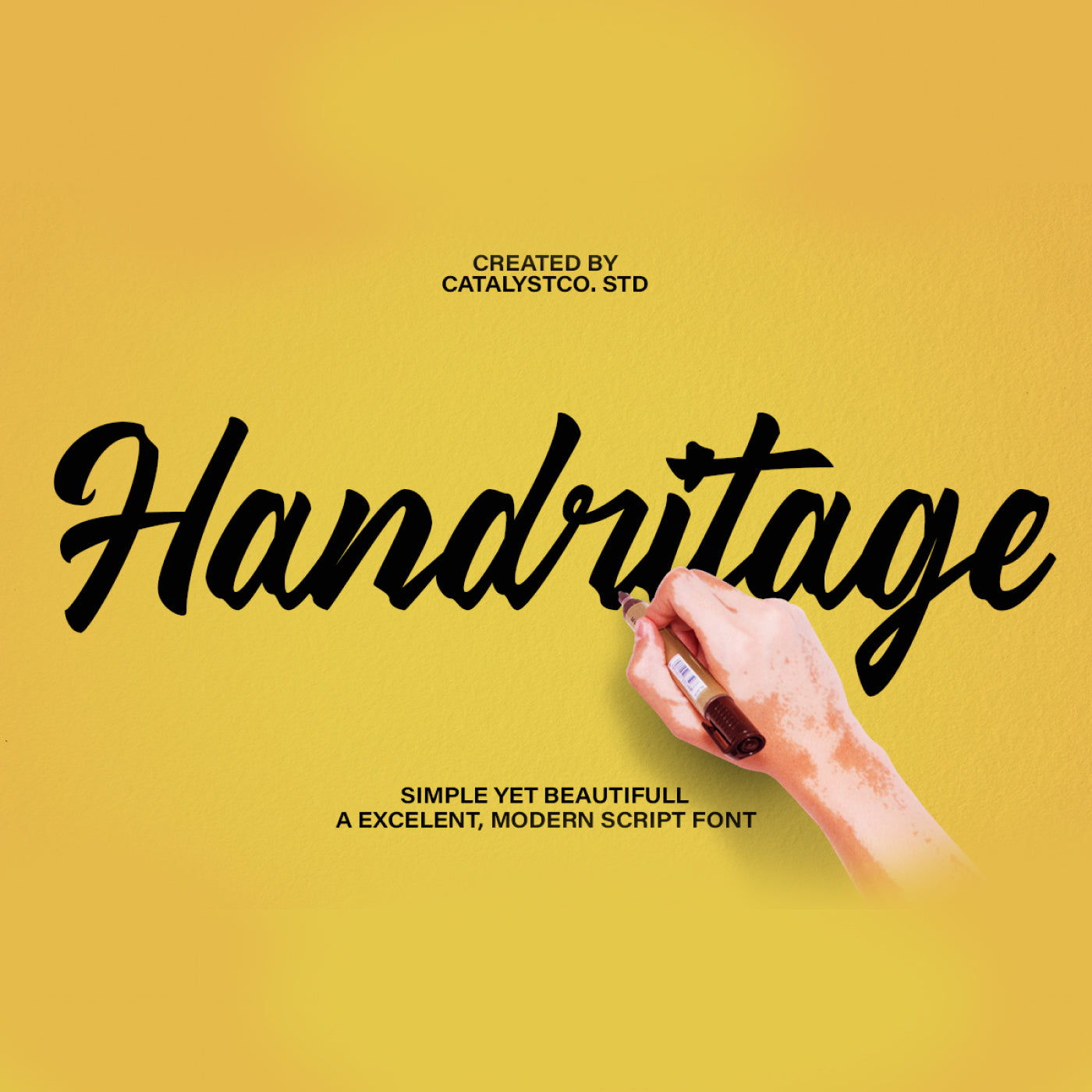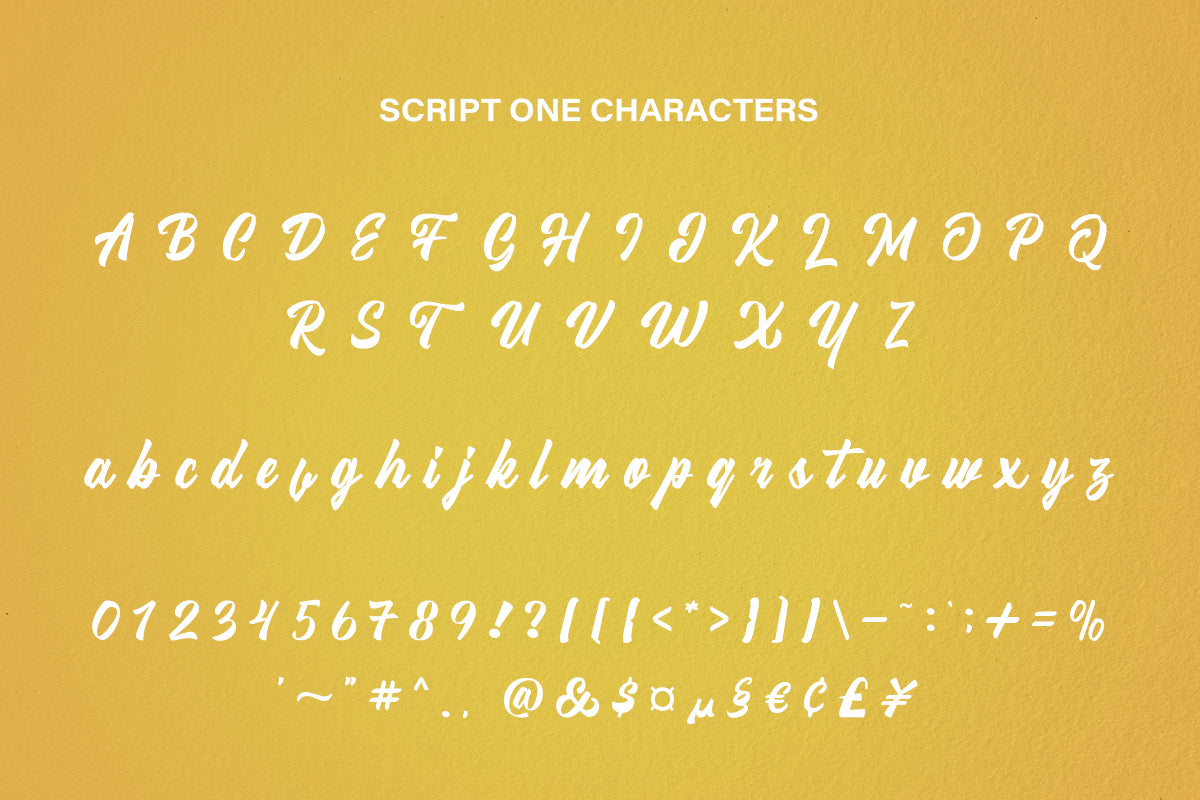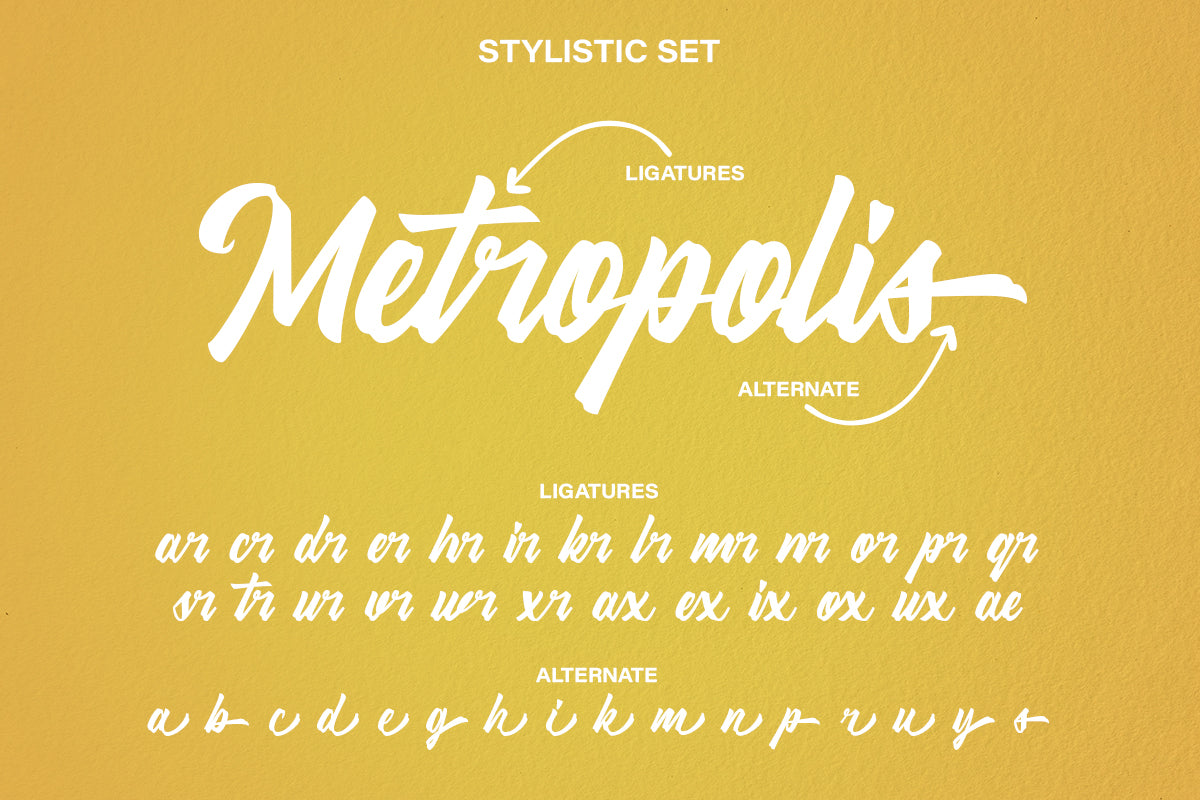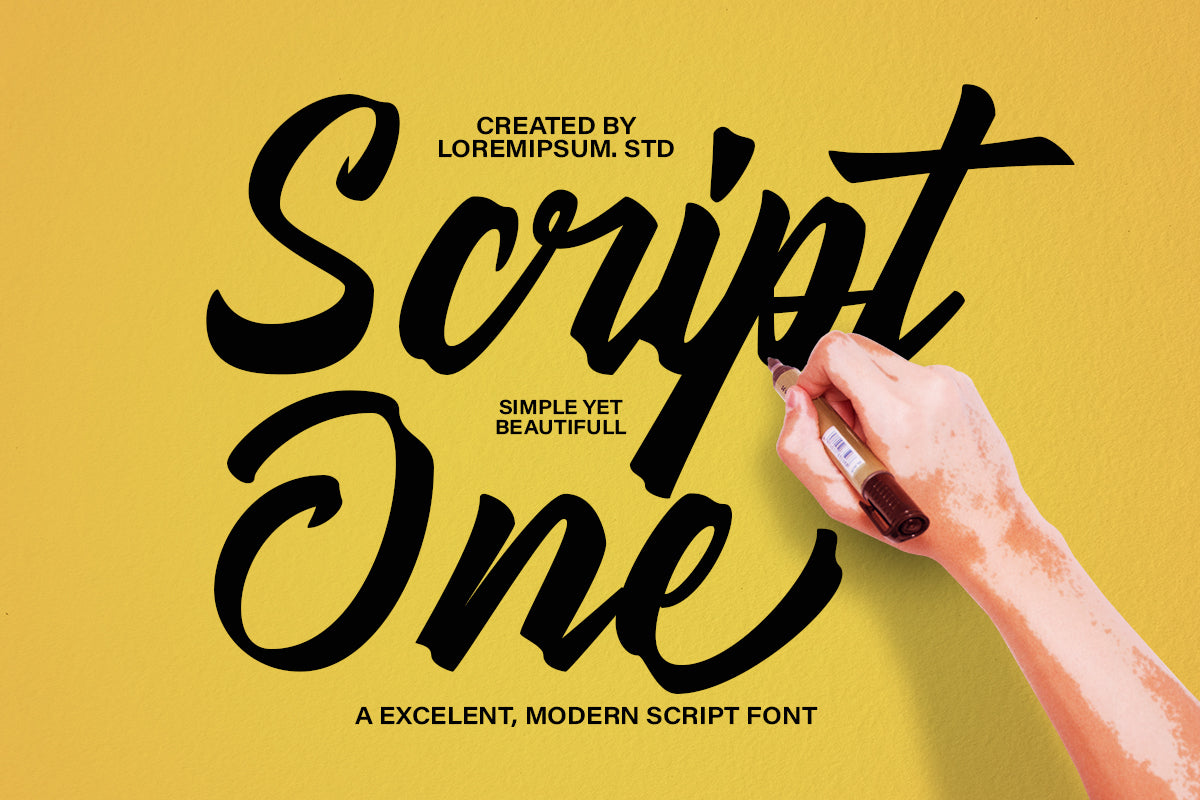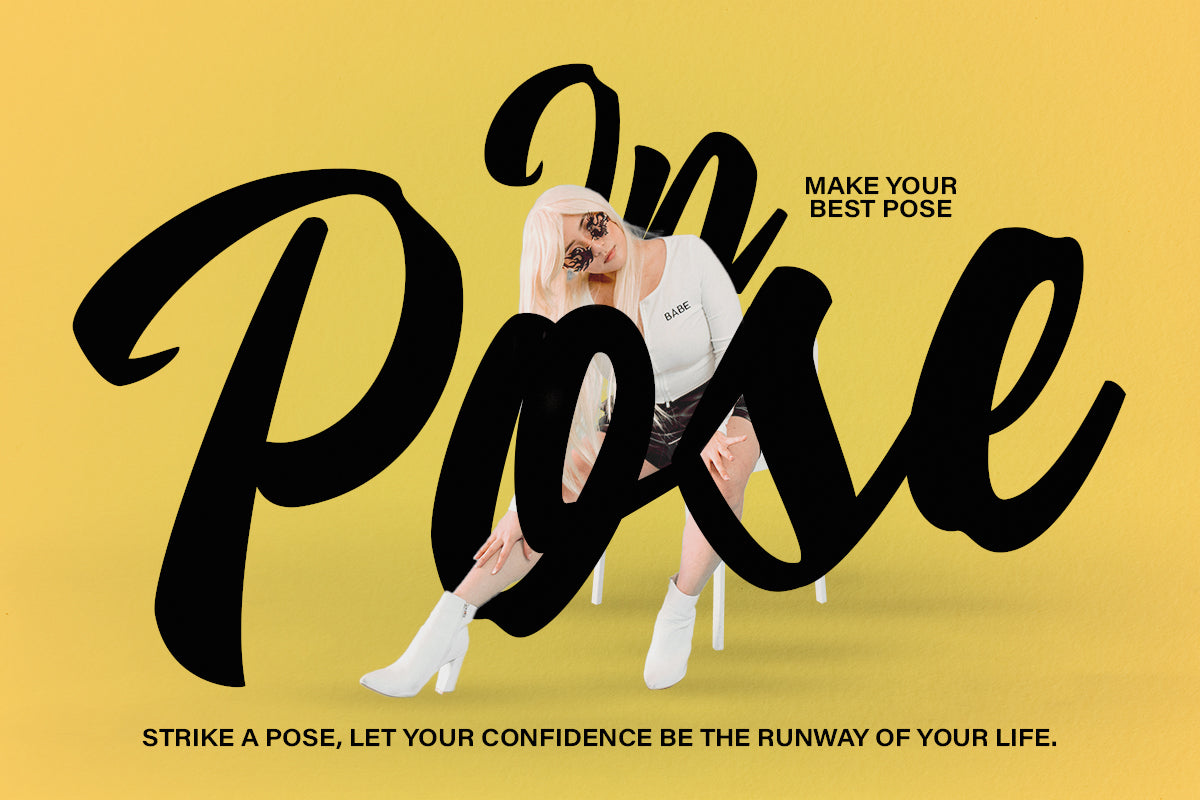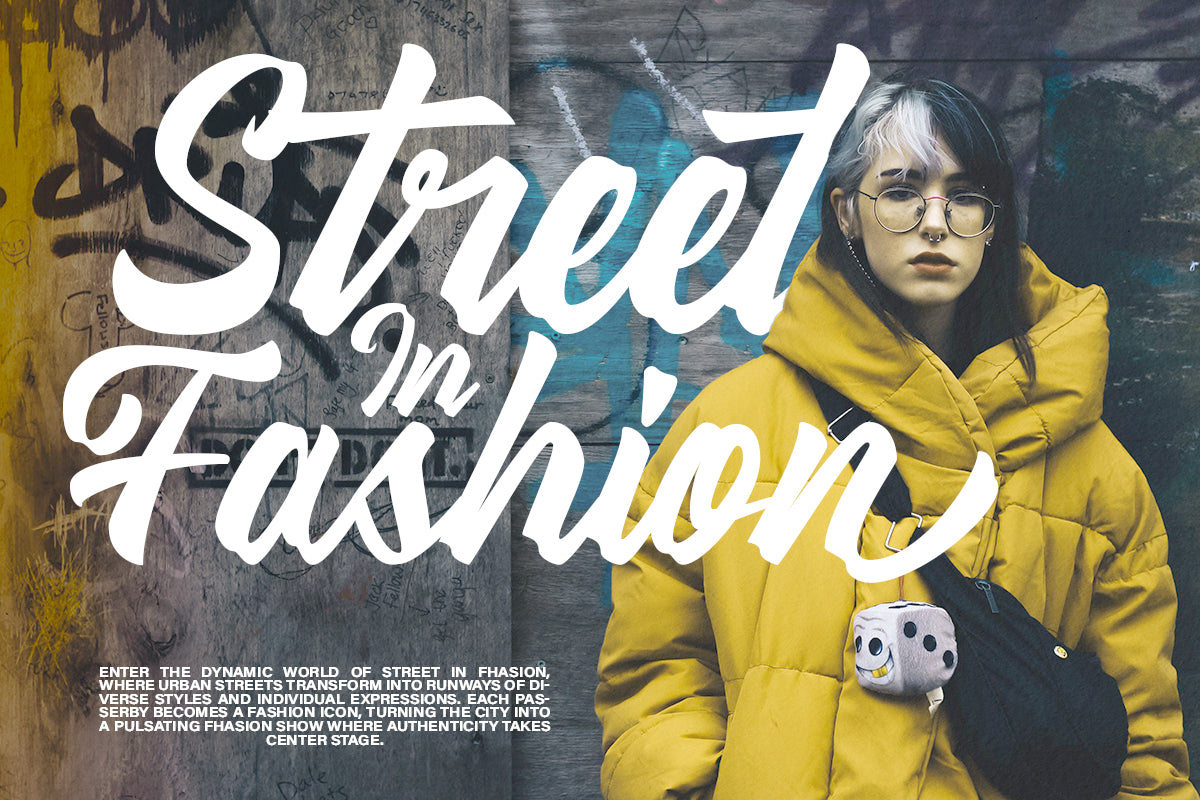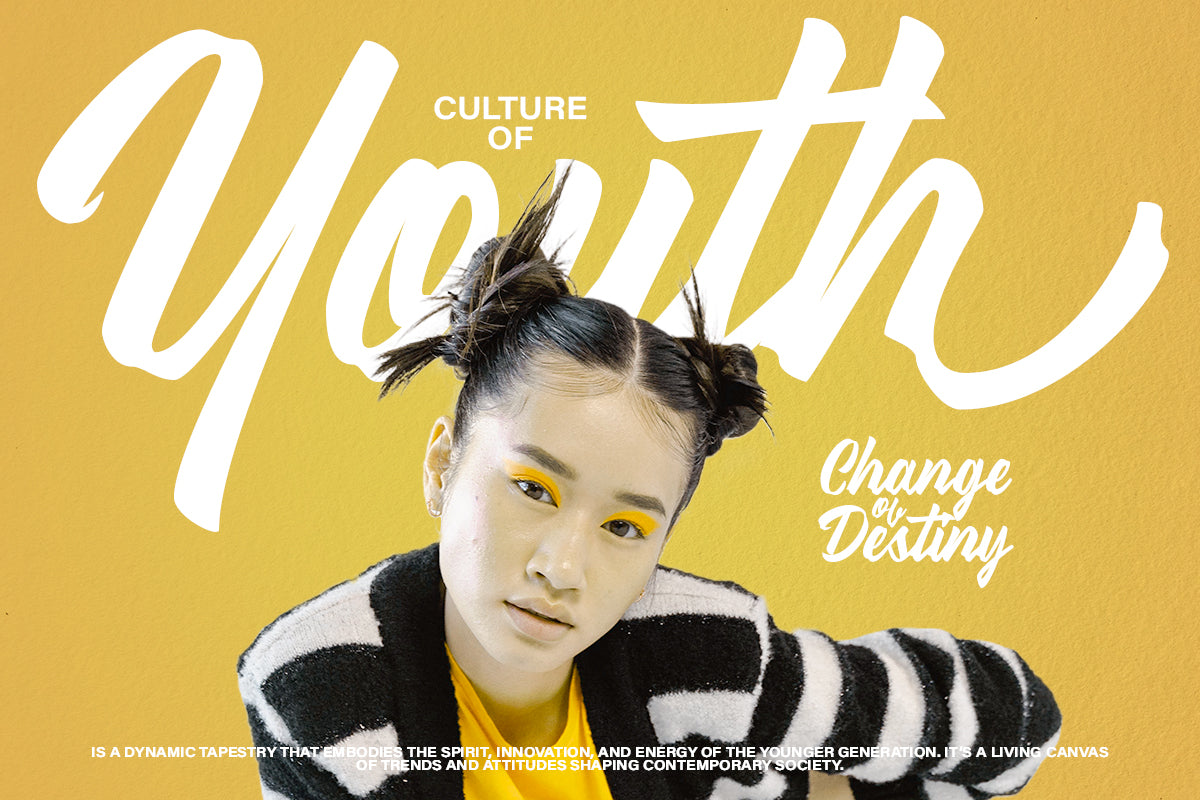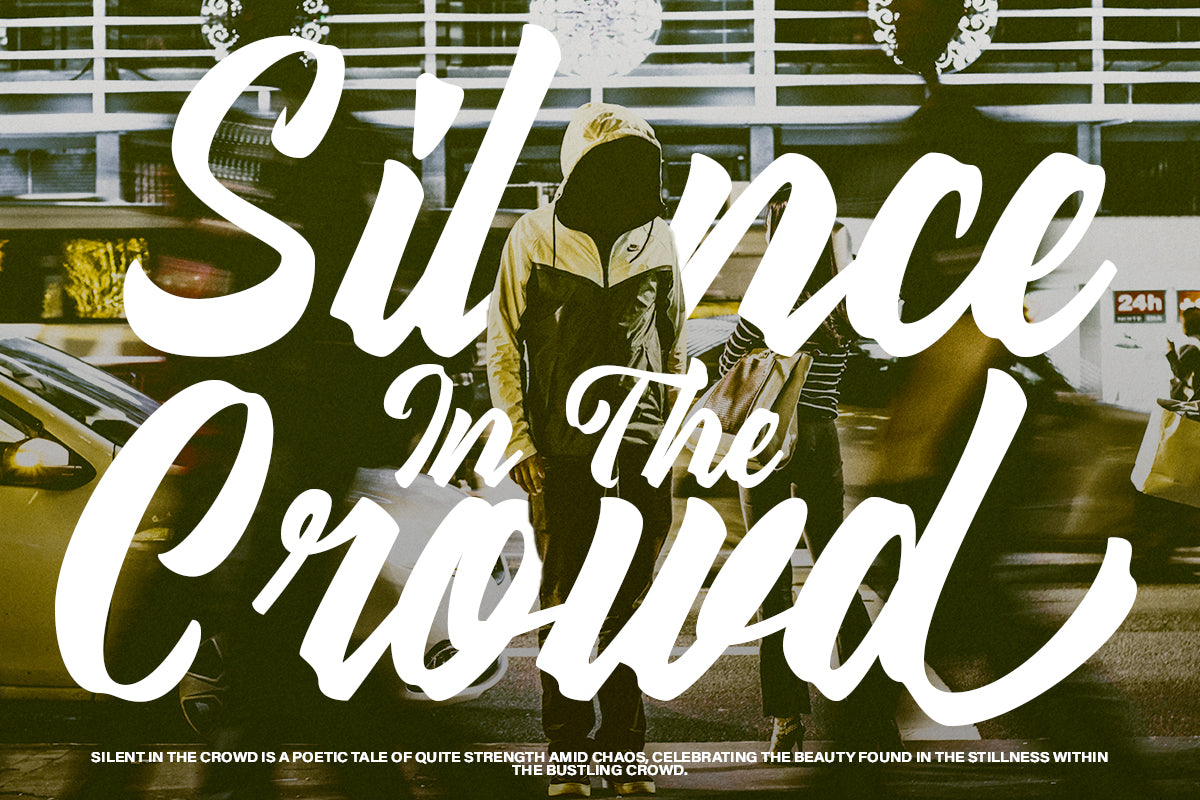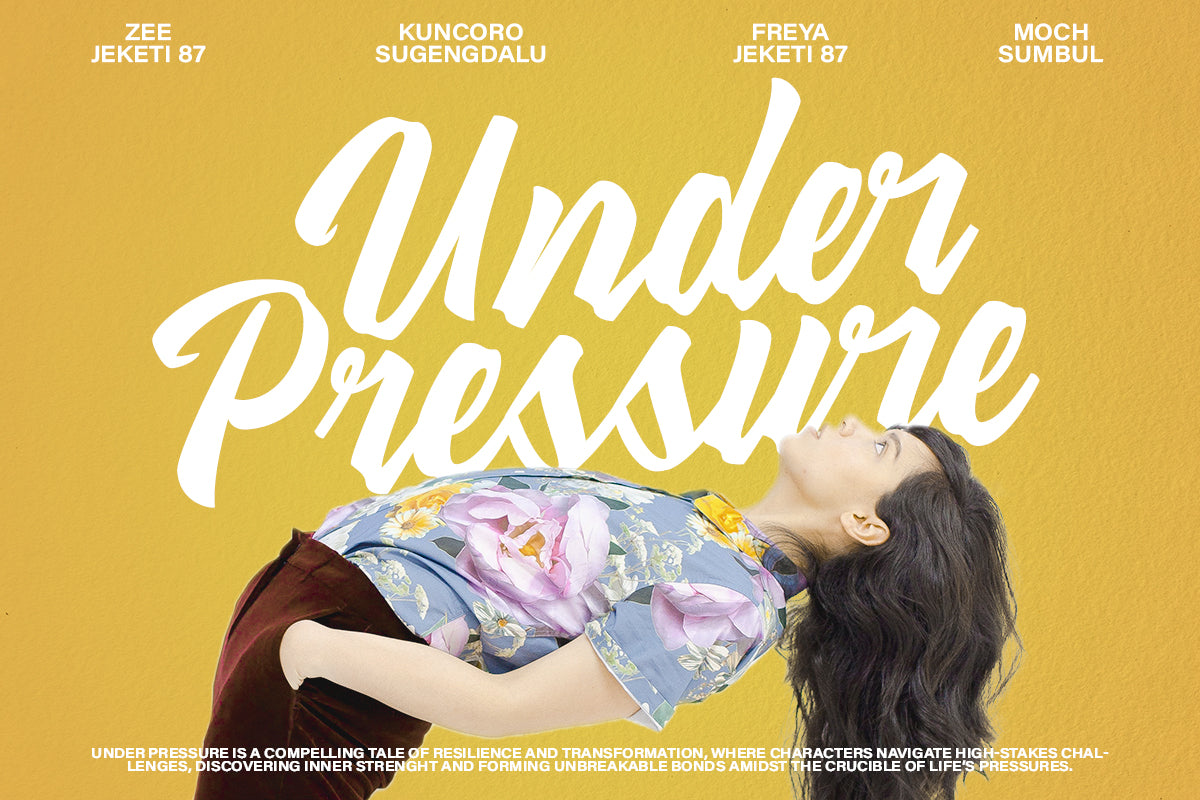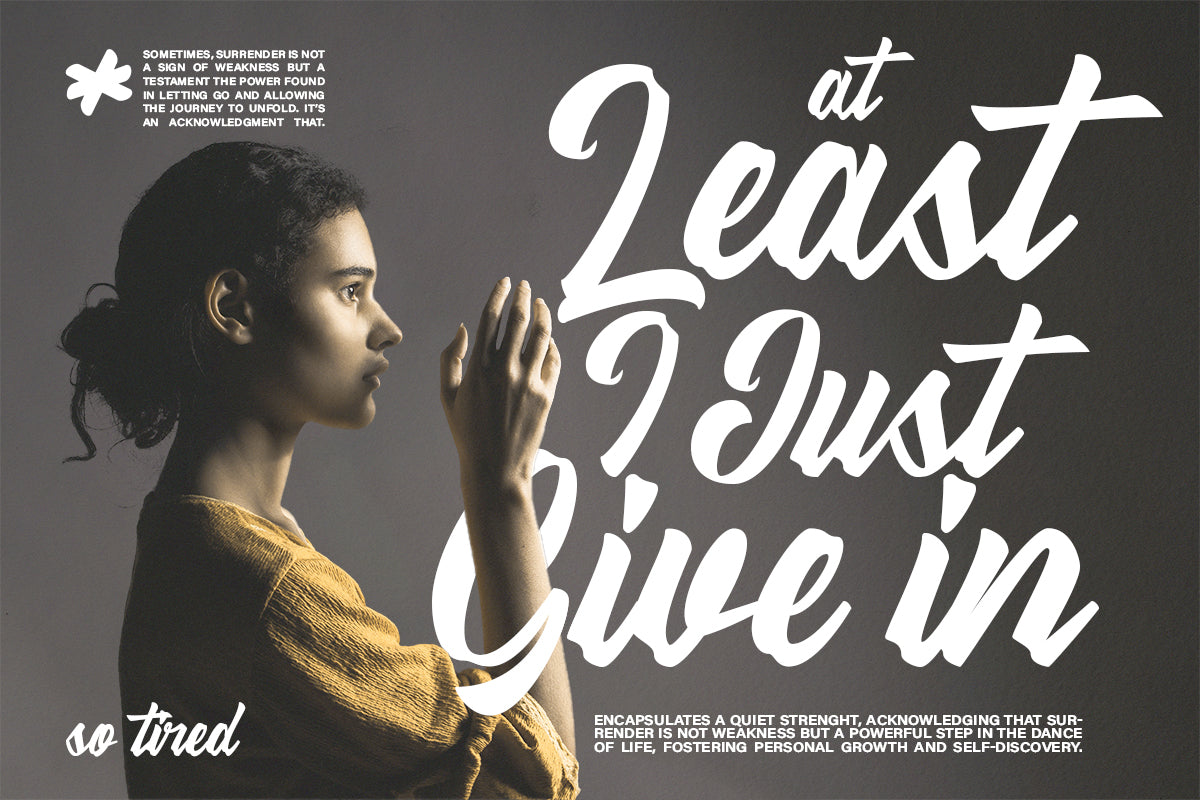
Handritage Modern Script Font
Handritage is a modern handwritten script font inspired by smooth pen strokes and natural calligraphy flow. Its elegant curves, consistent rhythm, and expressive personality give it a warm handmade feel while still maintaining modern clarity and readability. Perfect for personal branding and creative design, Handritage brings a beautiful balance of simplicity and charm. Great for signature logos, wedding invitations, product packaging, social media quotes, posters, handwritten titles, and feminine design themes. With complete uppercase, lowercase, numerals, and punctuation, Handritage offers a versatile and expressive script style that enhances any project with a personal and stylish touch.
Suitable for signature logos, wedding stationery, branding projects, product packaging, social media quotes, greeting cards, posters, handmade-style designs, and creative projects that require a stylish, natural, and modern handwritten script.
Handritage is a modern handwritten script font featuring uppercase and lowercase characters, ligatures, alternates, numerals, and punctuation, with multilingual support. It is available in TTF, OTF, and WOFF formats.